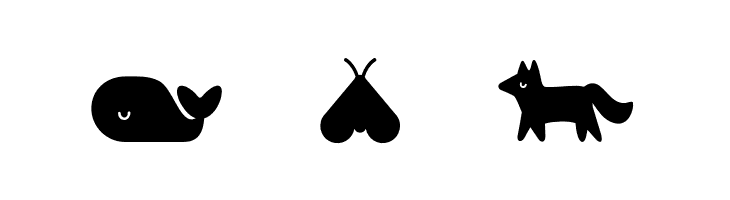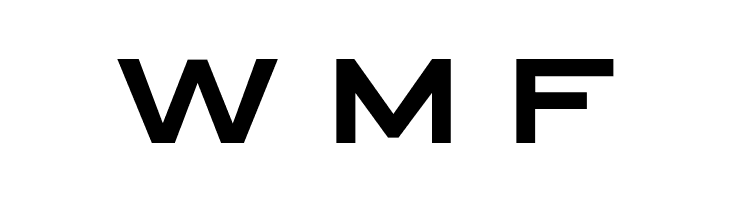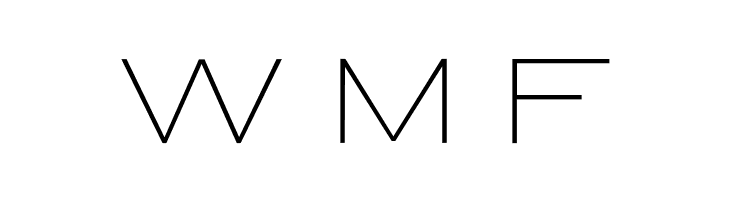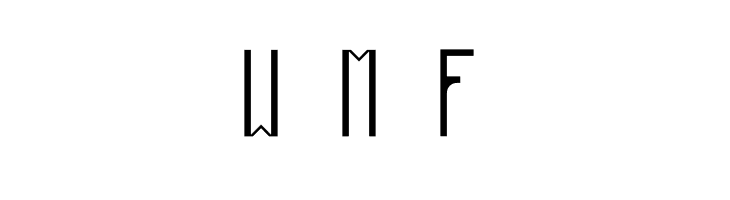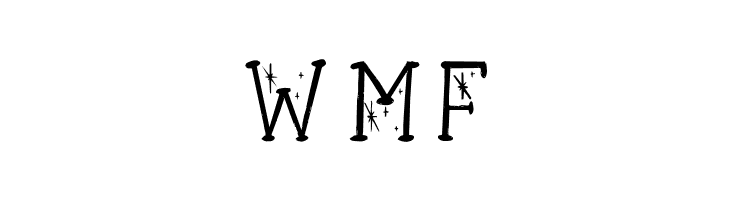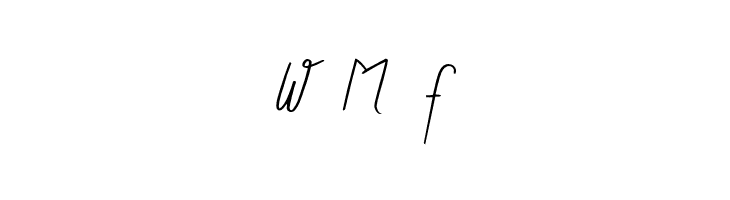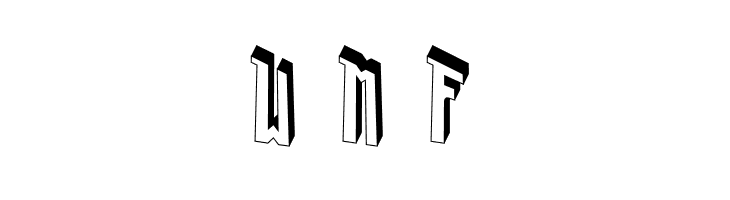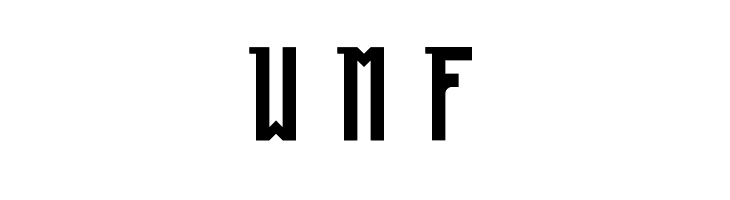
A whimsical, decorative font with star-like embellishments and a hand-drawn feel.
A playful, hand-drawn font with bold outlines and a whimsical style.
A bold, three-dimensional font with strong shadow effects and blocky characters.
A bold, geometric font with a modern and structured design.
A playful, handwritten-style font with a whimsical and casual appearance.
A distressed, vintage typewriter-style font with bold characters enclosed in squares.
A distressed, brush-style font with a raw and edgy appearance.
A bold, modern font with clean, geometric lines and a cohesive design.
A quirky, icon-based dingbat set with bold, playful silhouettes.
A bold, modern font with geometric lines and a cohesive design.
A bold, wide sans-serif font with a modern and clean design.
A modern, geometric font with clean lines and wide letterforms.
A whimsical, hand-drawn font with tall, narrow letterforms and uneven strokes.
A slender, handwritten font with an elegant and artistic style.
A whimsical, hand-drawn font with tall, narrow characters and thin strokes.
A flowing, cursive font with elegant, elongated strokes and a calligraphic style.
A playful, hand-drawn font with irregular strokes and a whimsical style.
A decorative, eclectic typeface with bold, abstract, and illustrative elements.
A playful, handwritten script font with elongated, fluid strokes.